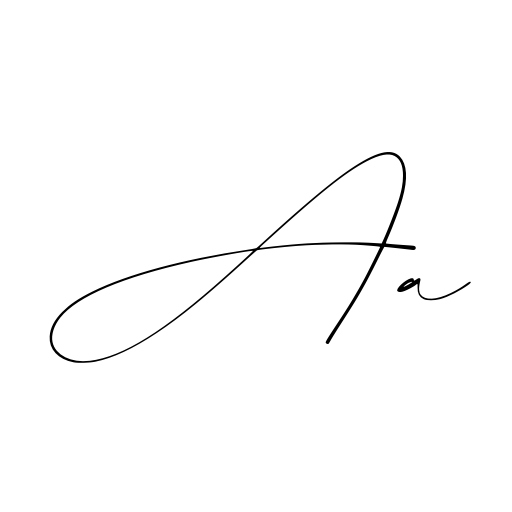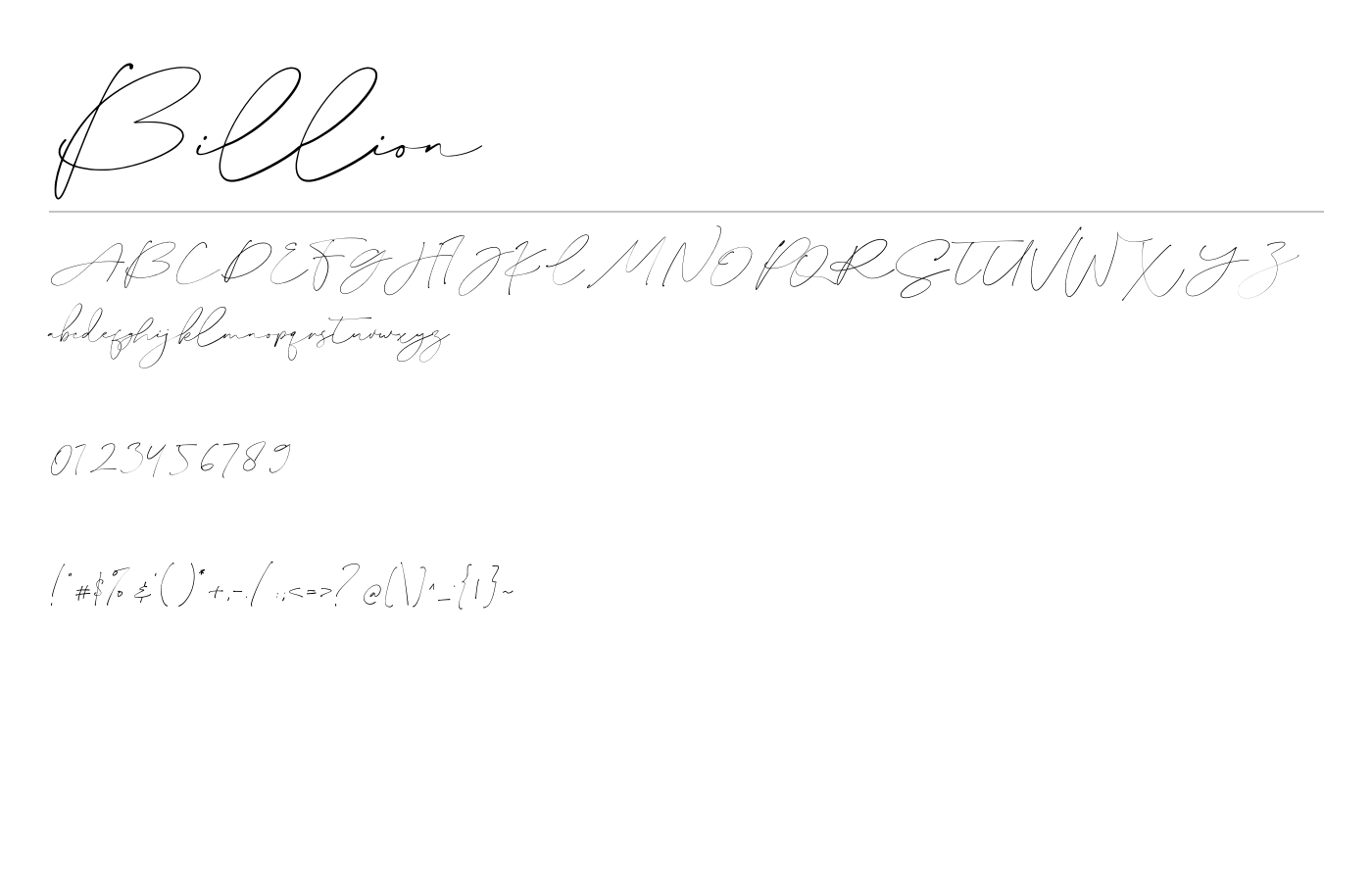
Billion Font is a delicate, elegant script typeface characterized by its fine, flowing lines and natural, handwritten style. Its light weight and airy letterforms give a graceful, sophisticated feel, making it ideal for luxury branding, wedding invitations, and creative projects seeking a personal touch. With its refined, stylish appearance, Billion Font beautifully communicates elegance and subtle charm in both digital and print designs.
Billion Font
About Billion Font
| Font family | Billion Font |
| Designer | Agung Rohmat |